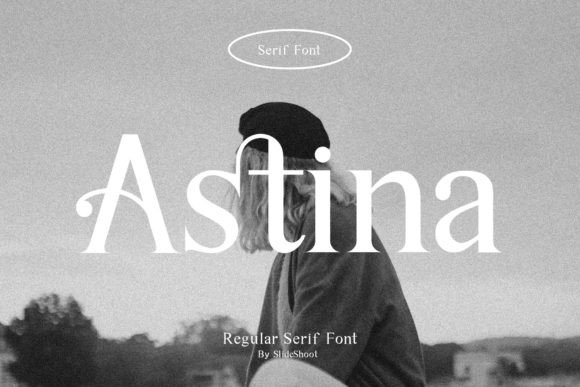
Astina Font: The Epitome of Elegance and Sophistication
In the realm of typography, few fonts have managed to strike a balance between elegance, sophistication, and versatility. Astina Font, however, is one such exceptional typeface that has garnered attention for its refined and polished appearance. This comprehensive article aims to explore the nuances of Astina Font, its characteristics, and the diverse applications where it excels.
Introduction to Astina Font
Astina Font is a serif typeface that embodies a harmonious blend of balance, smoothness, elegance, and style. Its subtle serifs and refined lines make it an ideal choice for designs that demand a touch of sophistication. Whether it’s an invitation card, company logo, business card, book title, or brand name, Astina Font seamlessly integrates into various design projects, elevating them with its classic charm.
Characteristics of Astina Font
Astina Font boasts several distinctive features that set it apart from other serif fonts. Some of its key characteristics include:
- Balanced Design: Astina Font exhibits a perfectly balanced design, where every element, from the serifs to the line spacing, works in harmony to create a visually appealing aesthetic.
- Smooth Lines: The font features exceptionally smooth lines, which contribute to its elegant and refined appearance.
- Elegant Serifs: Astina’s serifs are subtle yet distinctive, adding a touch of sophistication to any design.
- Stylish Alternations and Ligatures: The font includes stylish alternations and ligatures, which provide designers with the flexibility to create unique and captivating text arrangements.
Applications of Astina Font
Astina Font’s versatility makes it suitable for a wide range of design applications. Some of the areas where Astina Font excels include:
- Invitation Card Designs: Astina Font’s elegant and sophisticated appearance makes it an ideal choice for designing invitation cards for weddings, galas, and other formal events.
- Company Logos: The font’s refined lines and balanced design make it perfect for creating company logos that convey professionalism and stability.
- Business Cards: Astina Font’s subtle serifs and stylish alternations ensure that business cards stand out while maintaining a professional demeanor.
- Book Titles: The font’s classic charm and elegance make it suitable for book titles, adding a touch of sophistication to any literary work.
- Brand Names: Astina Font helps create memorable brand names that exude elegance and refinement.
Why Choose Astina Font?
With numerous fonts available, why should designers opt for Astina Font? Here are a few compelling reasons:
- Sophistication: Astina Font exudes sophistication and elegance, making it perfect for designs that demand a high level of refinement.
- Versatility: The font’s versatility ensures that it can be used in a wide range of design applications, from invitations to book titles.
- Legibility: Astina Font’s clear and balanced design ensures excellent legibility, making it easy to read in various contexts.
- Uniqueness: The font’s stylish alternations and ligatures provide designers with the opportunity to create unique and captivating text arrangements.
Tips for Using Astina Font Effectively
To maximize the impact of Astina Font, consider the following tips:
- Pair with Complementary Fonts: Combine Astina Font with complementary fonts to create visually appealing text arrangements.
- Adjust Line Spacing: Adjust line spacing to optimize legibility and ensure that the text flows smoothly.
- Experiment with Alternations and Ligatures: Take advantage of Astina Font’s stylish alternations and ligatures to add a touch of uniqueness to your designs.
- Use Appropriate Font Sizes: Select font sizes that suit the specific design application, ensuring that the text is easily readable.
Astina Font is a remarkable serif typeface that embodies elegance, sophistication, and versatility. Its balanced design, smooth lines, and stylish alternations make it an ideal choice for a wide range of design applications. Whether you’re designing invitation cards, company logos, business cards, book titles, or brand names, Astina Font is sure to elevate your designs with its classic charm. By understanding the characteristics and applications of Astina Font, designers can harness its full potential and create stunning visual experiences.